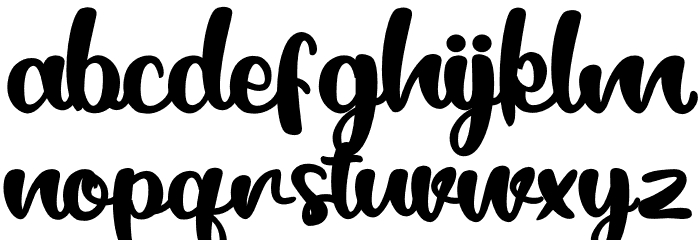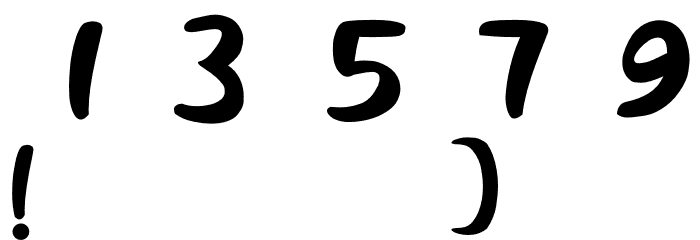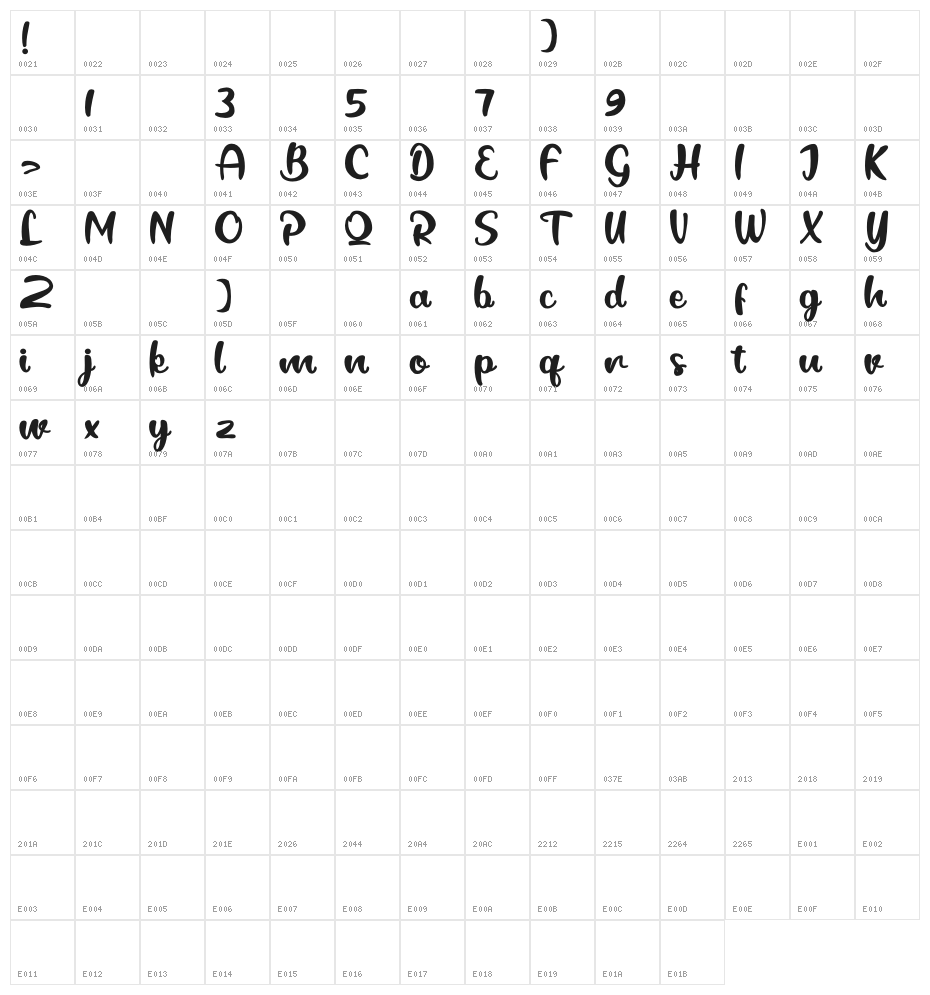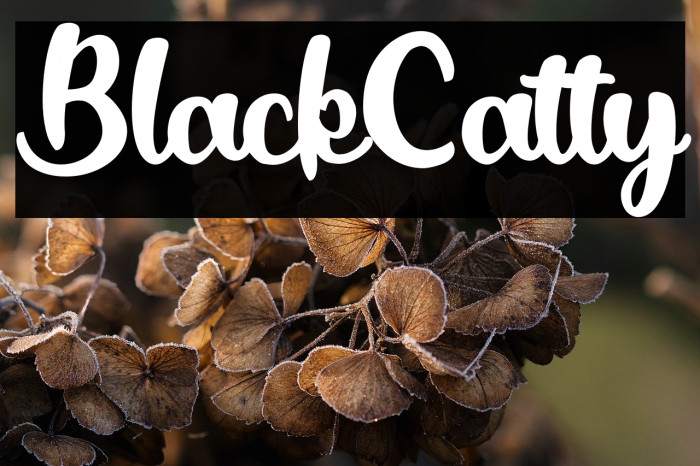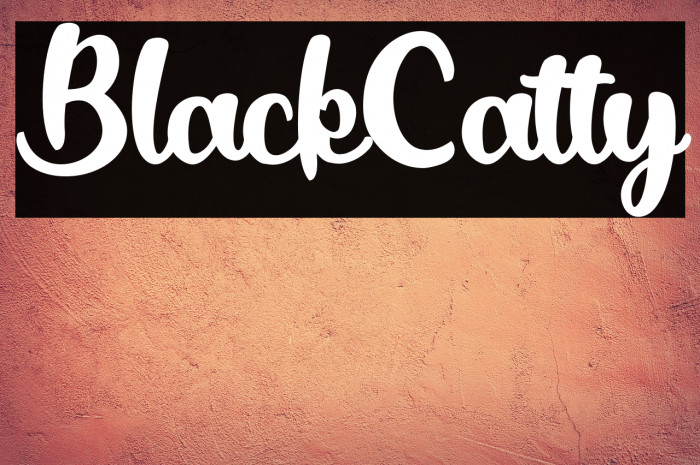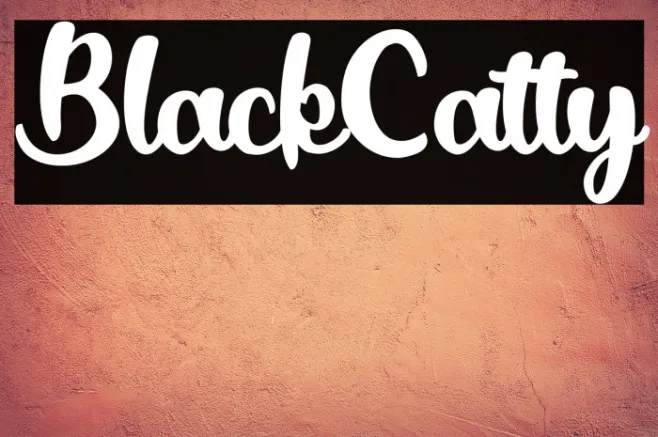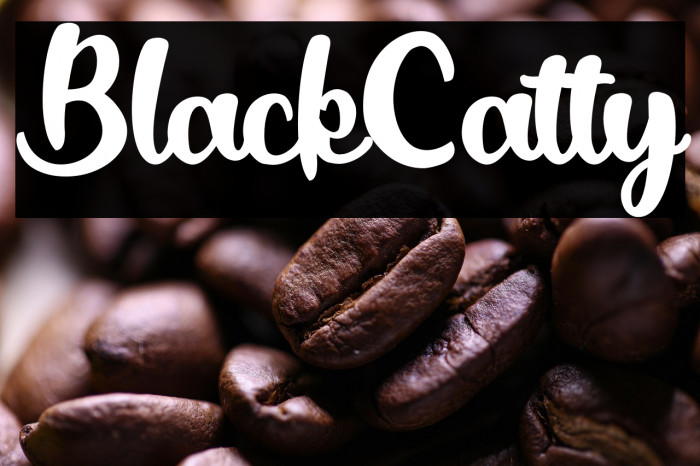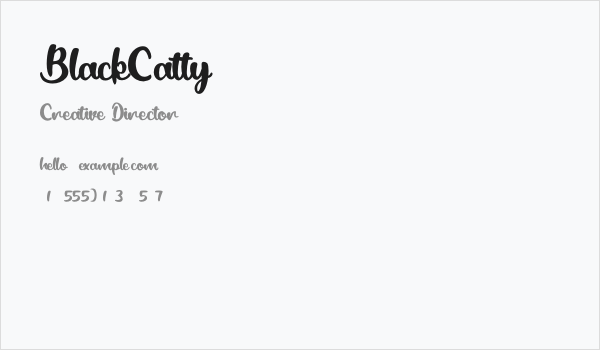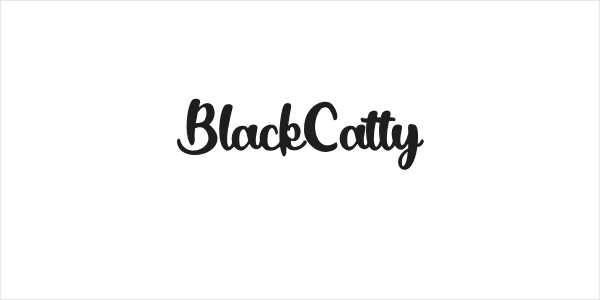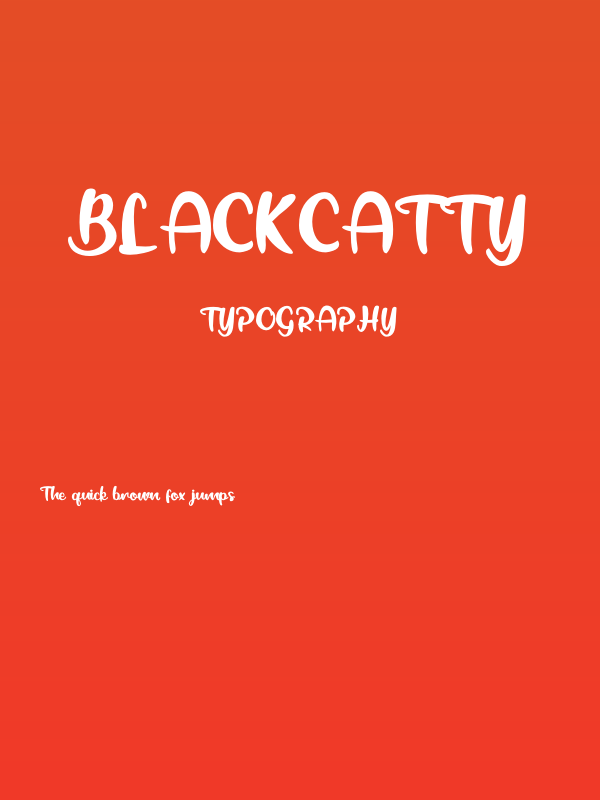
BlackCatty Font
This font features a playful and bold script style with a handwritten touch. The letters are connected, giving it a fluid and dynamic appearance. The uppercase characters maintain a consistent height, while the lowercase letters have a slightly exaggerated loop and curve, adding to its whimsical charm. The numbers are bold and rounded, matching the overall style of the alphabet. The special characters are designed to complement the letters, maintaining the same playful and bold aesthetic. This font is ideal for projects that require a fun and lively feel.
A playful, bold script font with a handwritten touch.
- Proposed Projects: Perfect for greeting cards, playful branding, children's books, and creative posters.
- Category: Script
- Overall Style: Playful